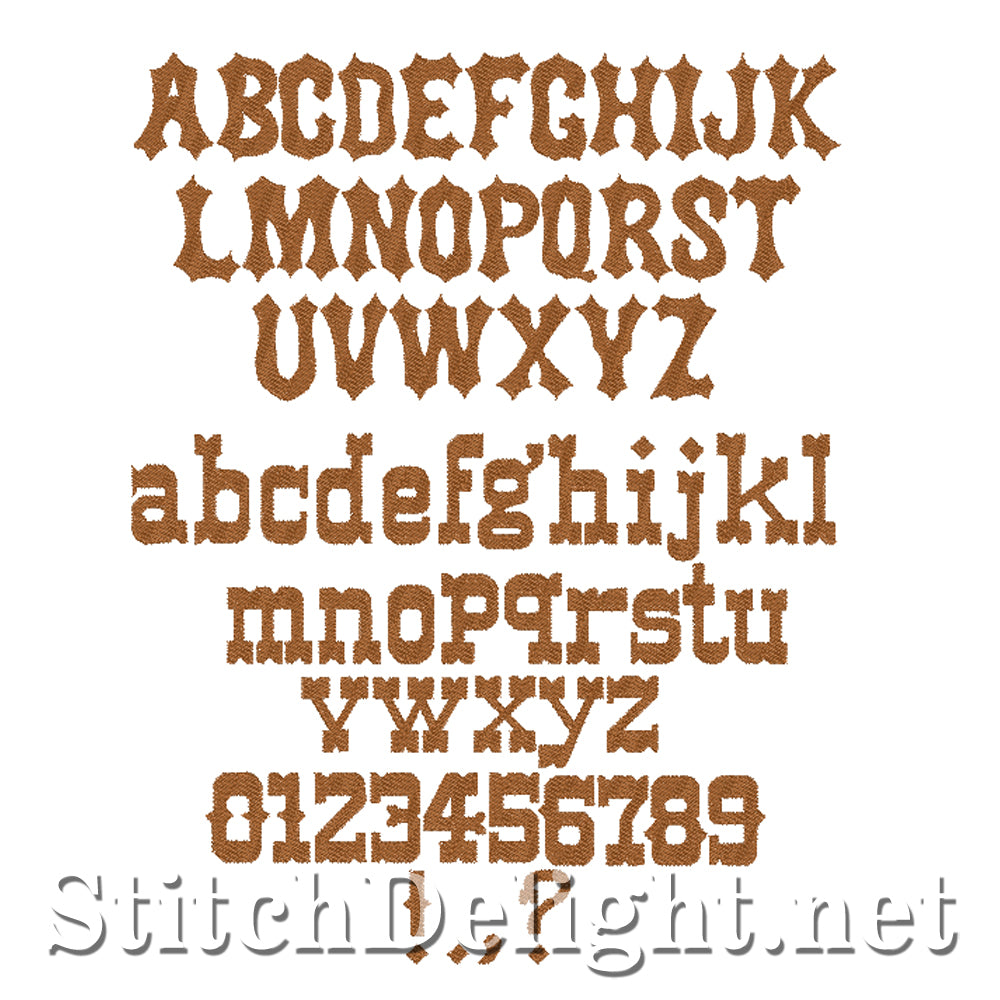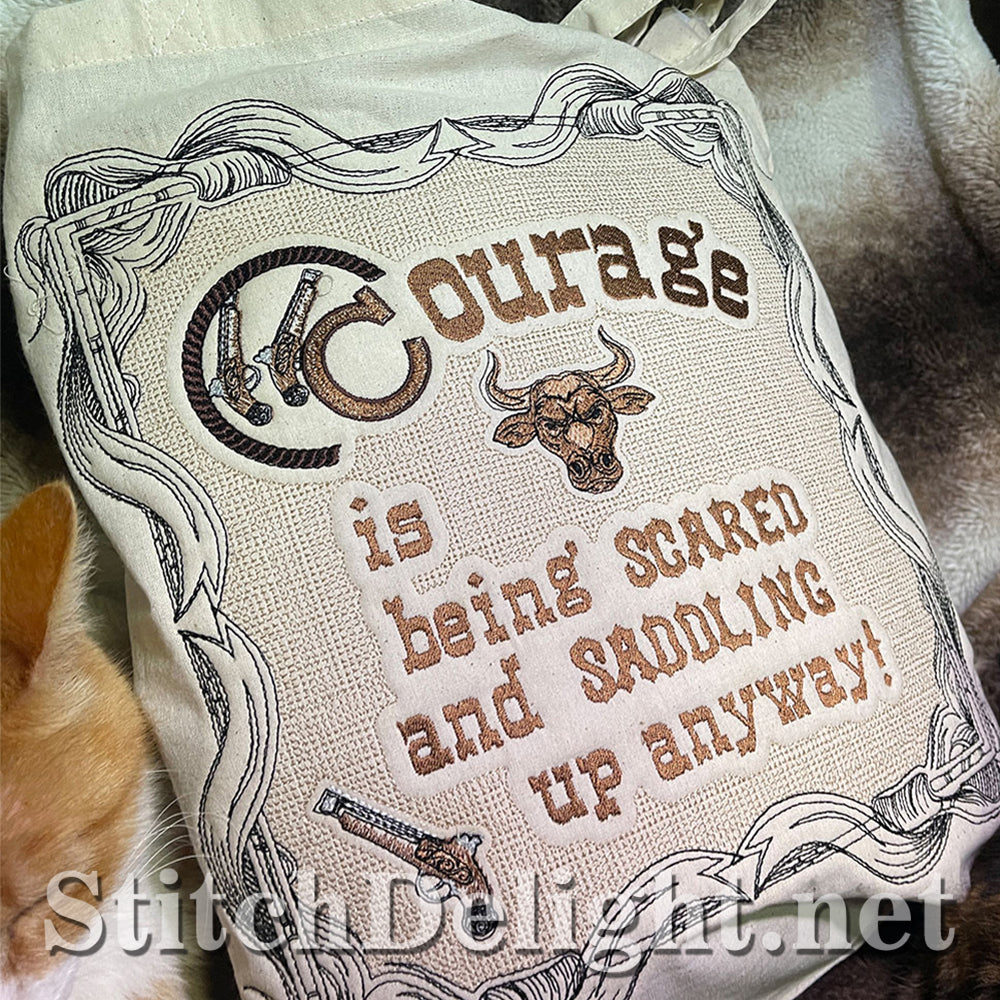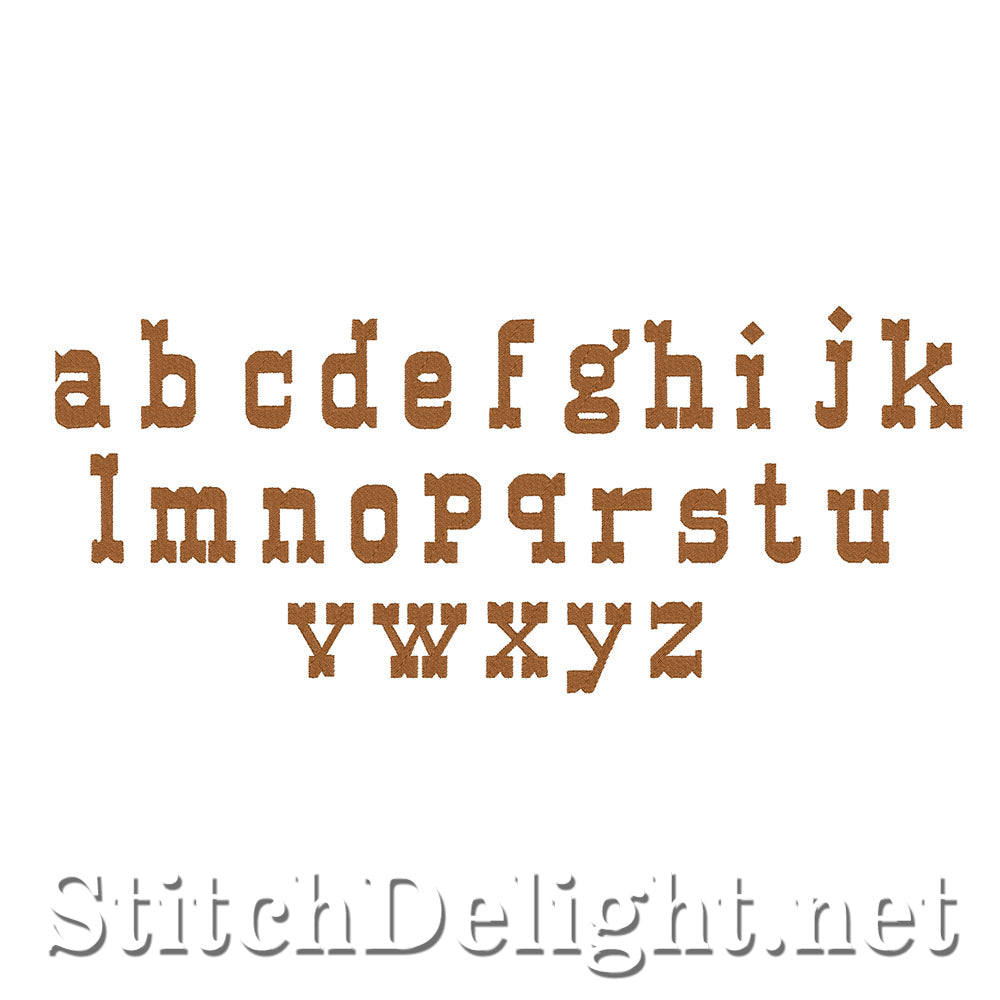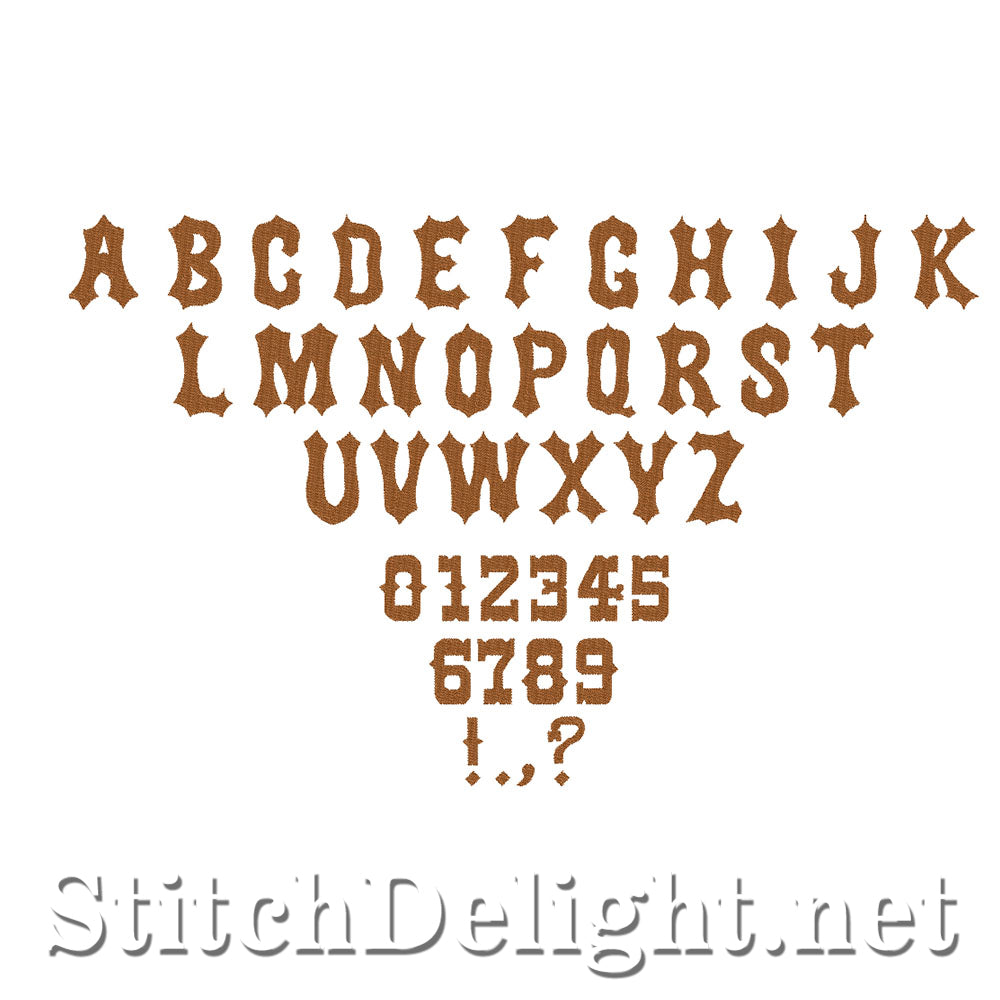
This is the accompanying embroidery font for SDS3235, it perfectly complements its picturesque counterpart, its clean lines and classic elegance provide a seamless balance to the intricate details of the picture font.
Together, they offer a harmonious duo, allowing you to effortlessly mix and match styles for a complete and captivating embroidery experience. average letter height for this font is 2".